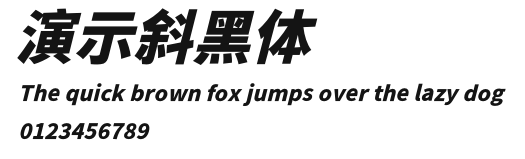
演示斜黑体 Preview
• Font Name: 演示斜黑体
• Designer: Keynoteart
• Manufacturer: Keynoteart
About 演示斜黑体.otf
演示斜黑体.otf is a modern, elegant sans-serif font designed for ultimate readability and visual harmony. Perfect for branding, headlines, web design, and print materials.